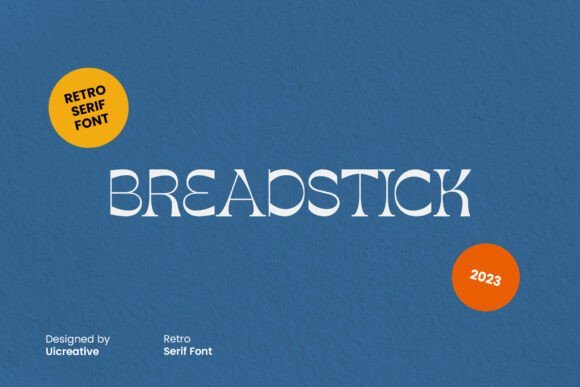
The Perfect Slice of Typography: Introducing the Breadstick Font
Have you ever found yourself rummaging through your grandfather’s old trunk, uncovering a treasure trove of vintage typewriters and dusty design books? That’s exactly where I discovered the Breadstick Font, a retro serif typeface that immediately captured my heart.
This charming font is a true gem for designers, perfectly suited for a wide variety of projects, from signature and stationery to logo design and magazine covers. Its versatility and timeless appeal make it an invaluable addition to any designer’s toolkit. Whether you’re working on a fashion brand, editorial design, or simply want to add a touch of nostalgia to your next project, the Breadstick Font is sure to deliver.
- Font Family: Breadstick Font is a unique and hand-drawn font family designed for a wide range of applications.
- Character Set: The Breadstick Font family includes a wide range of characters, including uppercase and lowercase letters, numbers, punctuation marks, and special characters.
- Unique Characteristics: The Breadstick Font features a distinctive, hand-drawn style with subtle imperfections, giving it a warm and inviting feel.
Breadstick Font Review
I recently had the chance to try out the Breadstick Font and here’s my honest review.
- Unique and playful design: The Breadstick Font has a fun, whimsical feel to it that’s perfect for creative projects or branding.
- Customizable: The font is highly customizable, with a range of weights and styles available.
- Great for headings: The Breadstick Font looks great as a heading font, adding a touch of personality to your designs.
- Limited legibility: While the font is visually appealing, it can be a bit difficult to read at smaller sizes.
- Not suitable for body text: Due to its playful design, the Breadstick Font may not be the best choice for large blocks of body text.
The Breadstick Font is a great choice for designers who want to add a touch of personality to their projects. While it may have some limitations, it’s a versatile and customizable font that can be used in a variety of contexts.
Tips for Getting the Most Out of Breadstick Font
Experiment with different font sizes and styles to create visual interest. Use the font in combination with other design elements, such as images and graphics, to create a cohesive look.
The Breadstick Font is ideal for use in creative projects, such as:
- Menu boards and restaurant signage
- Food and beverage packaging
- Marketing materials, such as flyers and brochures